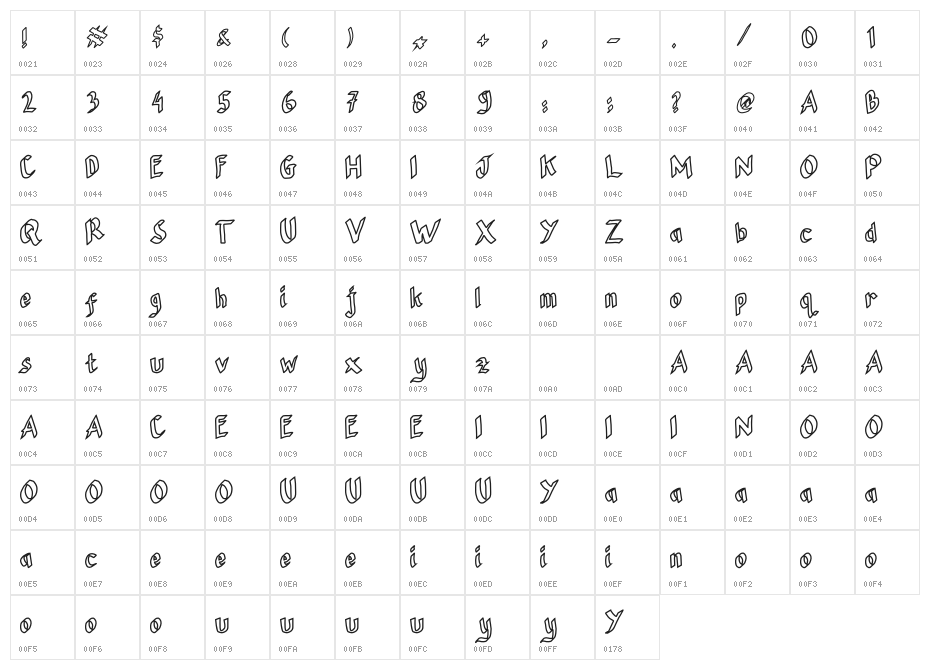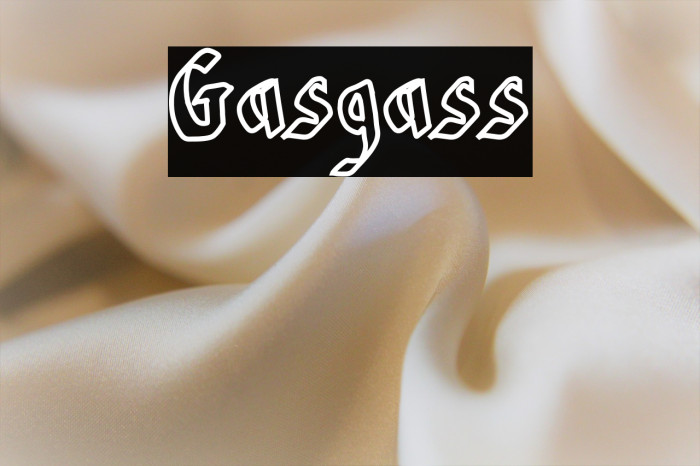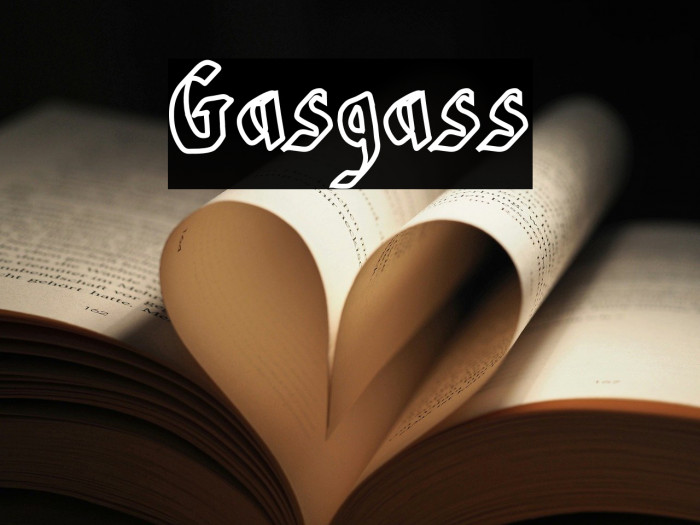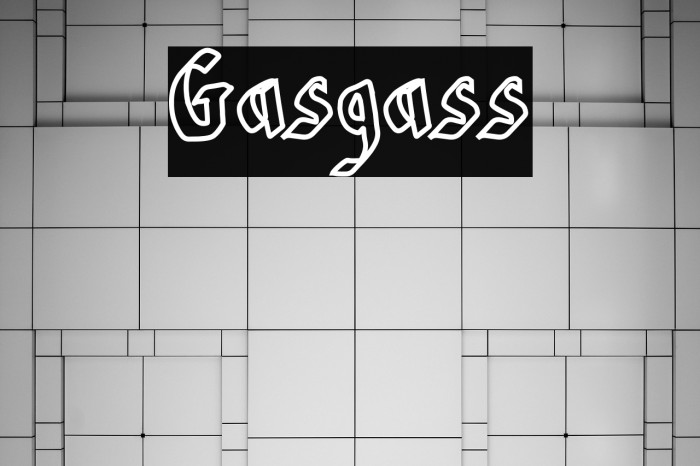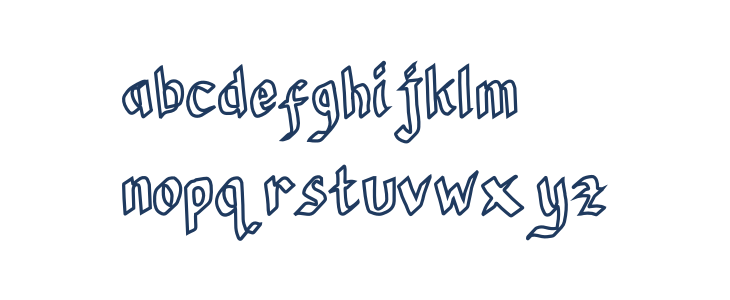
Gasgass Font
Gasgass Description
This font features a bold, angular design with a distinctive, hand-drawn appearance. The uppercase letters are characterized by sharp edges and a slightly irregular form, giving them a dynamic and energetic feel. The lowercase letters maintain this angular style but with a more compact and rounded approach, providing a nice contrast to the uppercase. The numerals are consistent with the overall theme, offering a cohesive look across all characters. Special characters are creatively integrated, maintaining the font's unique style. The font's boldness and decorative nature make it stand out, suitable for eye-catching designs.
Proposed ProjectsIdeal for posters, logos, and branding projects that require a bold and unique visual impact.